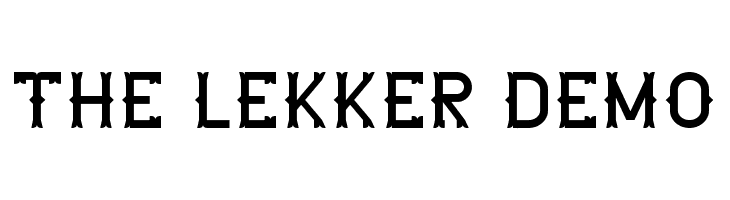
A dynamic, angular font with a modern, edgy style.
An elegant, flowing script font with a classic calligraphic style.
A bold, decorative font with vintage and modern elements, ideal for standout designs.
A bold, jagged font with a raw, edgy aesthetic and irregular strokes.
A bold, 3D geometric font with a futuristic style.
A bold, 3D geometric font with outlined characters for a modern, standout look.
A bold outline font with a modern yet vintage flair, featuring hollow interiors and consistent character width.
A bold, jagged font with a playful and edgy appearance.
A bold, decorative font with a unique cut-out pattern and rounded edges.
A bold, impactful font with a vintage yet modern style, perfect for standout designs.